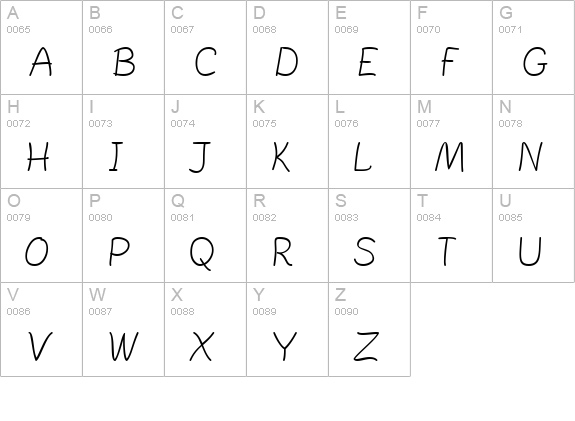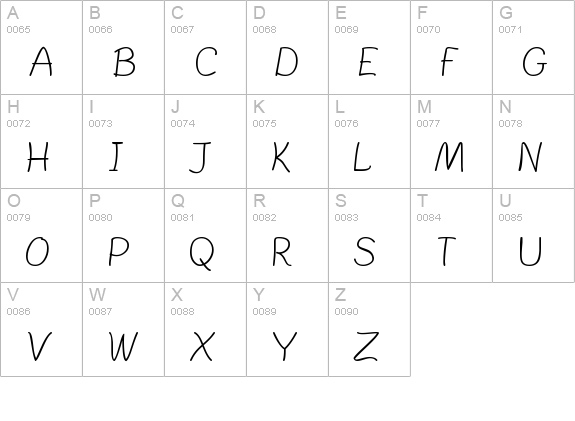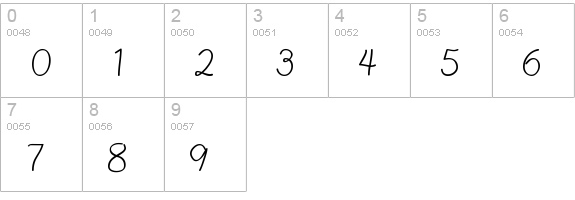
PlainPensle Plain Font Details
Introducing PlainPensle Plain, a timeless font that exudes simplicity and elegance. With its clean lines and effortlessly legible form, this font is perfect for a wide range of design projects. Its versatility allows it to be used in various contexts, from professional documents to creative endeavors. What sets PlainPensle Plain apart is its seamless integration of classic and modern elements. This font strikes the perfect balance between tradition and innovation, making it an ideal choice for those seeking a refined yet contemporary aesthetic. Its understated charm speaks volumes, adding a touch of sophistication to any design. But the best part? PlainPensle Plain is completely free! That's right, this exceptional font can be yours at no cost. Simply head over to FontsMarket.com and download it to start incorporating its timeless appeal into your next project. Whether you're a graphic designer, a blogger, or simply someone looking to add a touch of elegance to their everyday communications, PlainPensle Plain is the perfect companion. With its freely available download, you have the opportunity to explore the endless possibilities this font offers. From corporate branding to invitations and everything in between, PlainPensle Plain effortlessly adapts to suit your needs. Its clean and uncluttered appearance ensures that your message remains the focal point, allowing your content to shine. So why wait? Take advantage of this incredible opportunity to enhance your design arsenal with the timeless appeal of PlainPensle Plain. Download it for free at FontsMarket.com today and let your creativity soar.